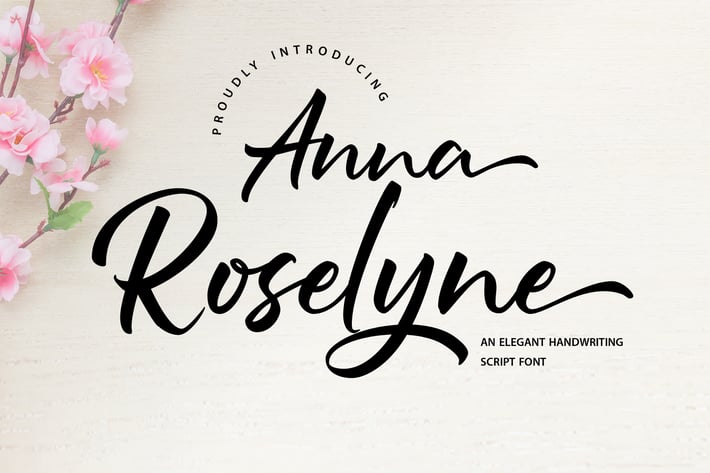
Anna Rosselyn | Elegant Handwriting Script Font
Anna Rosselyn | Elegant Handwriting Script Font with a calligraphy style, So beautiful on invitation like greeting cards, branding materials, business cards, quotes, posters, and more!